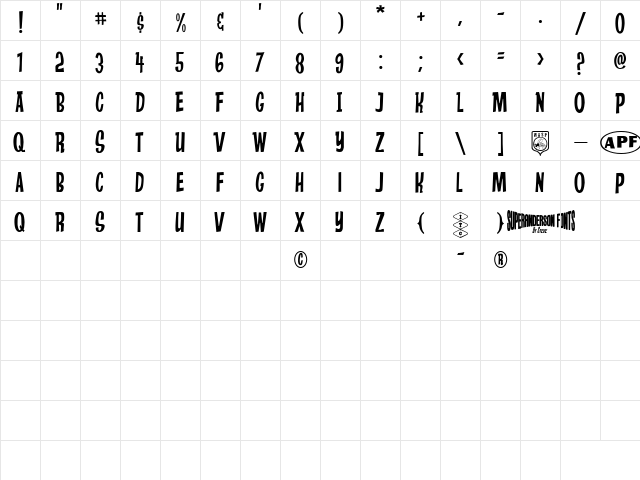
Anderson Stingray Regular
Design Context for Anderson Stingray Typeface
Anderson Stingray takes a measured approach to typography — its balanced proportions and neutral character make it a reliable workhorse for both digital and print work.